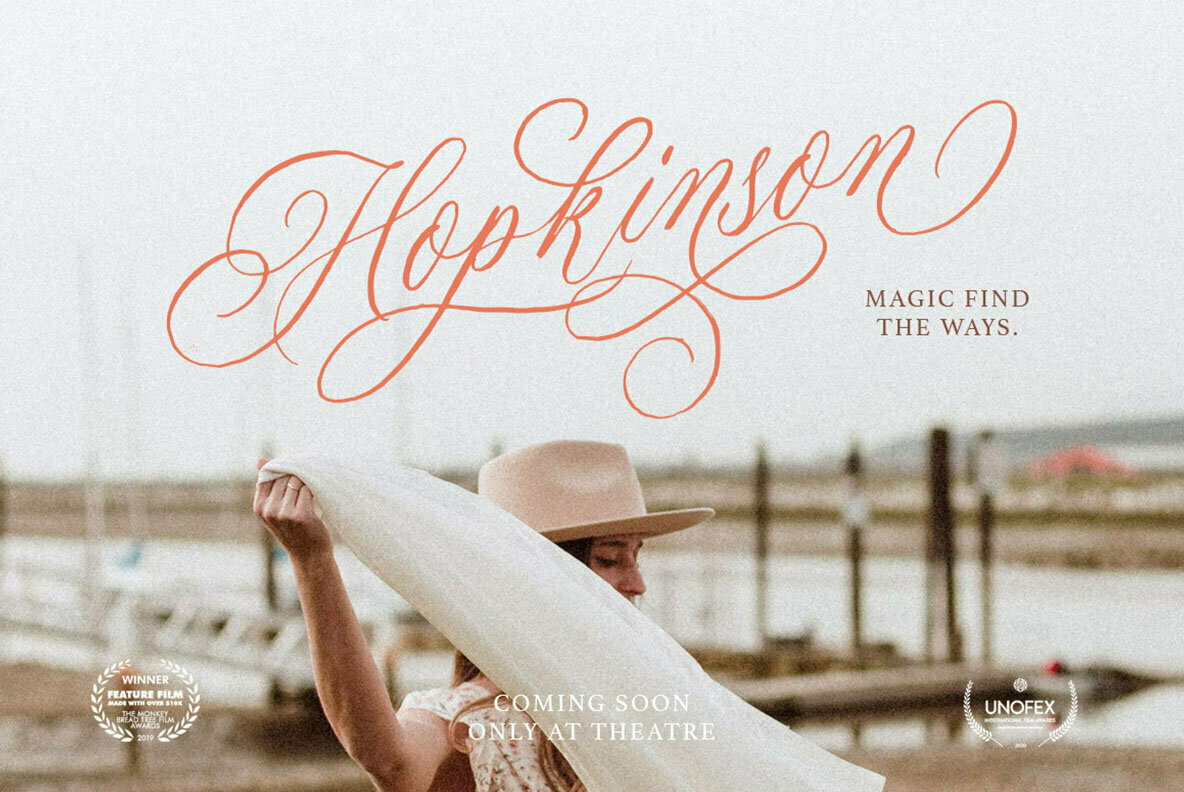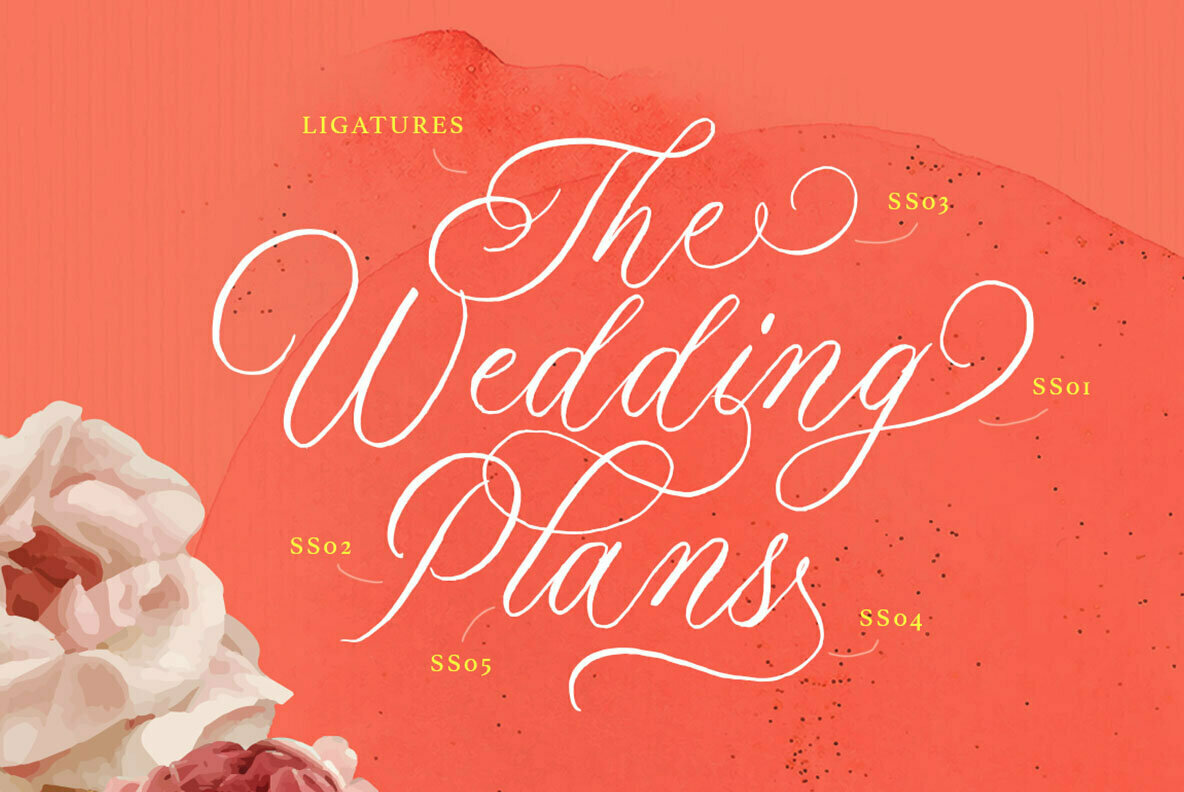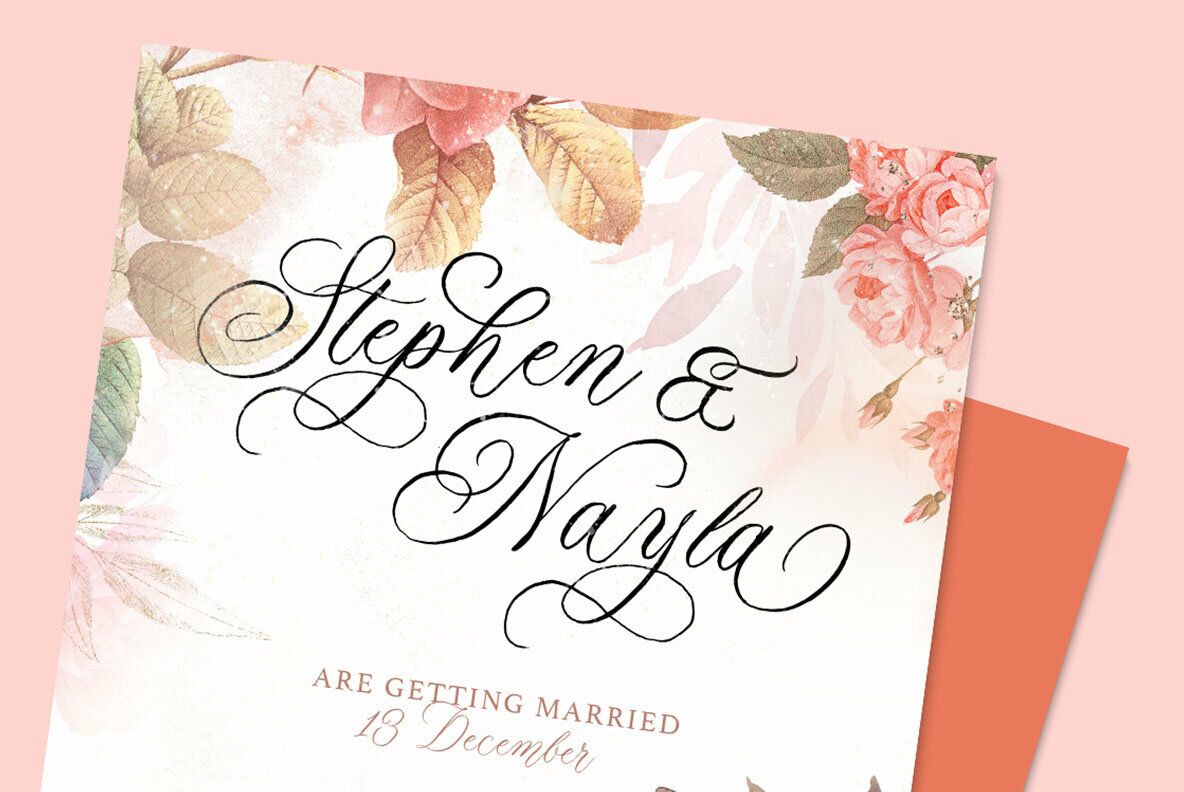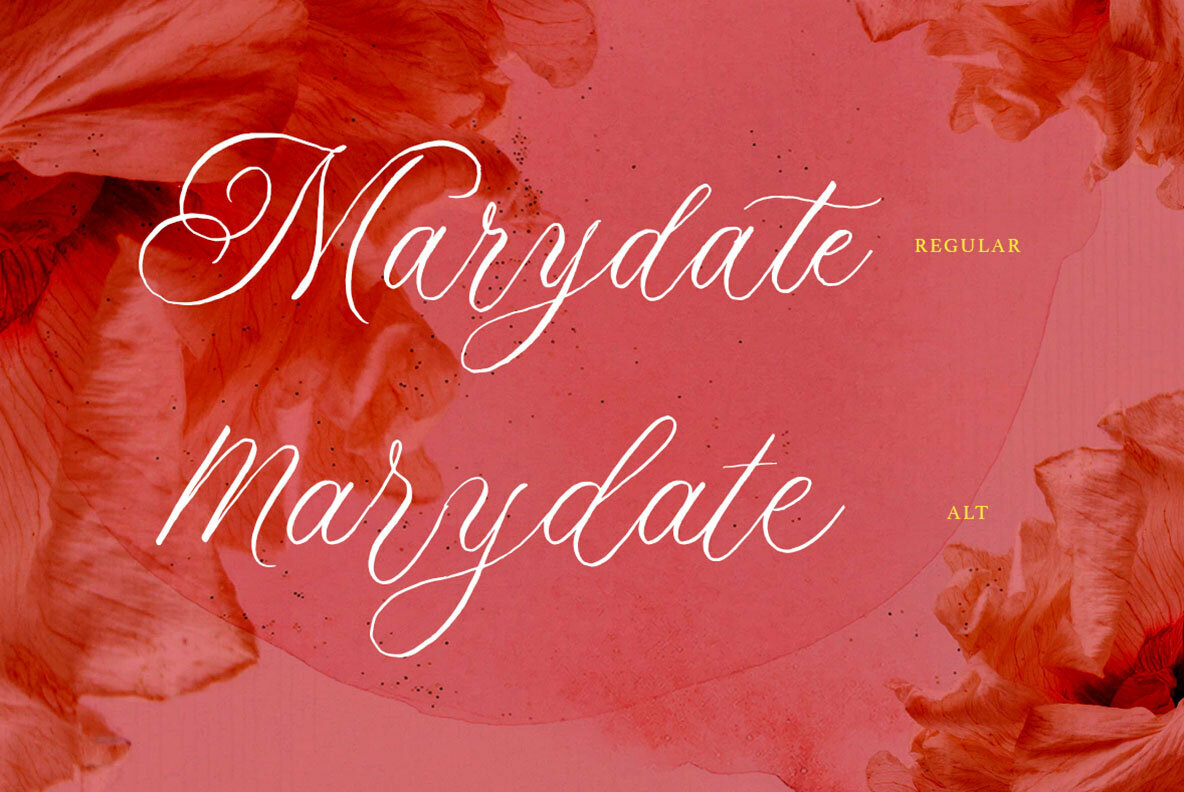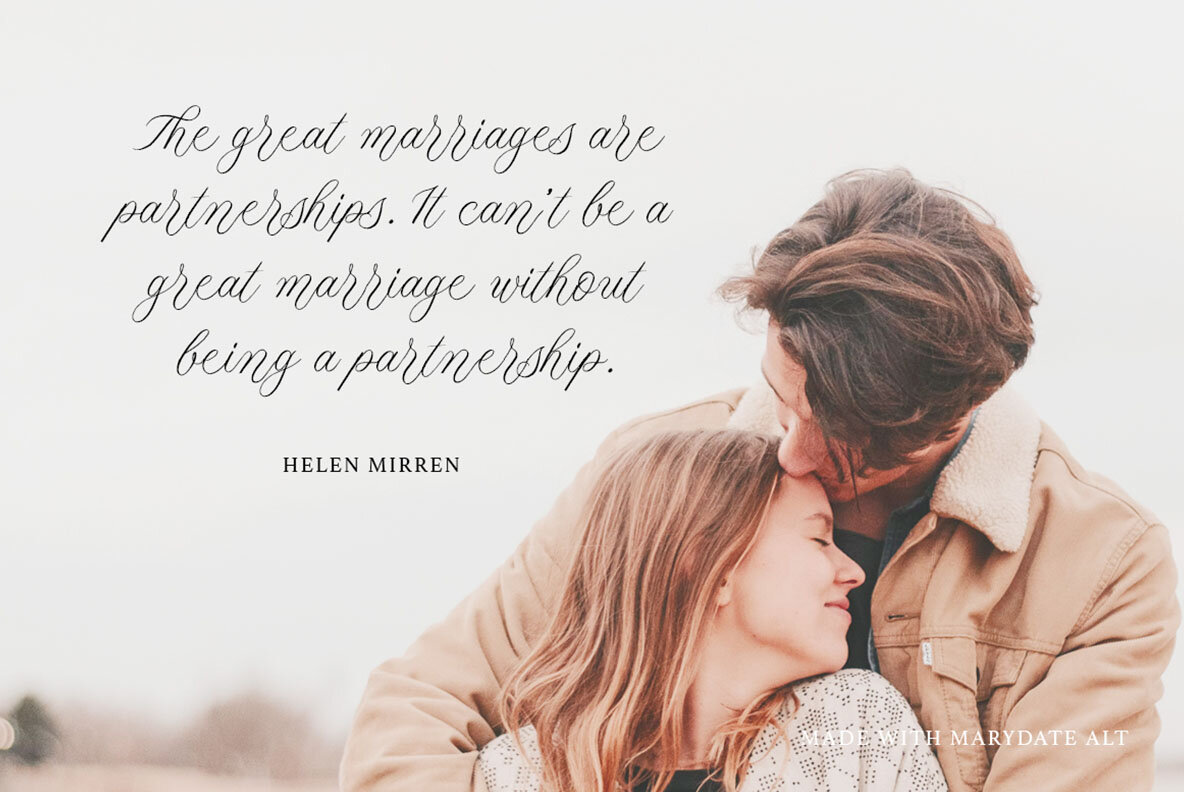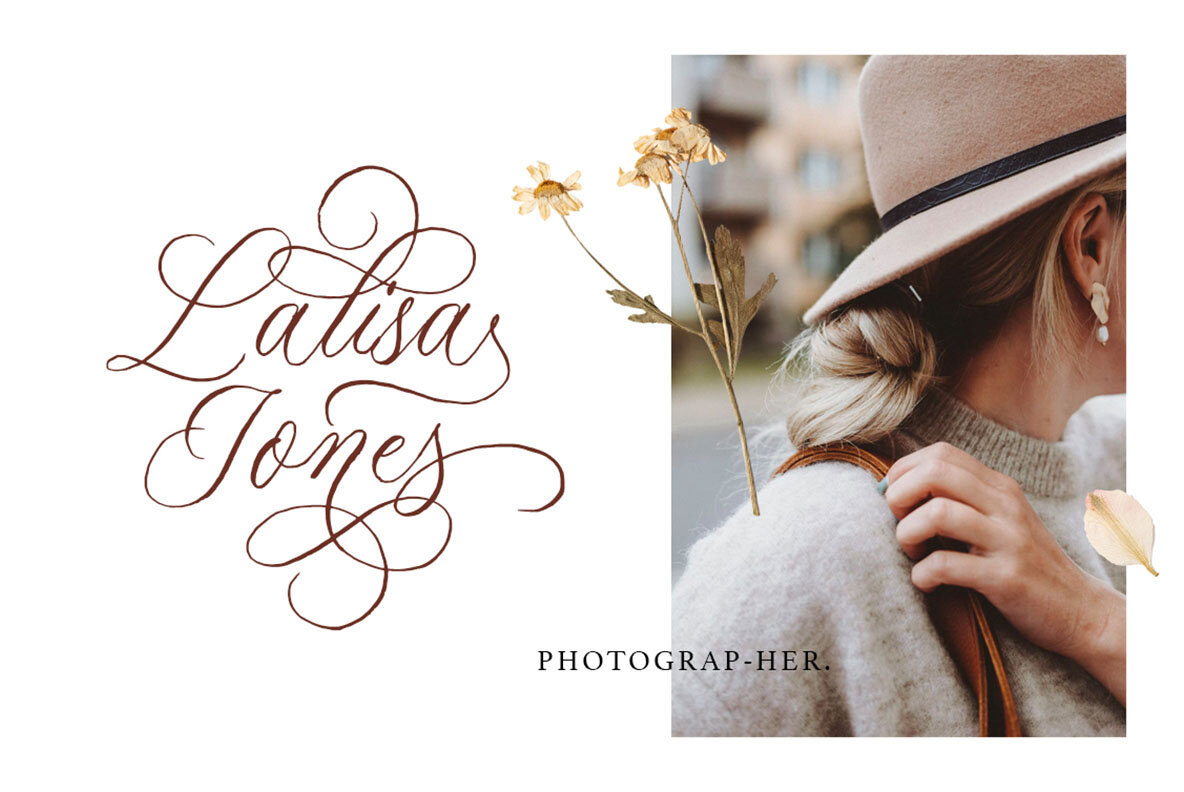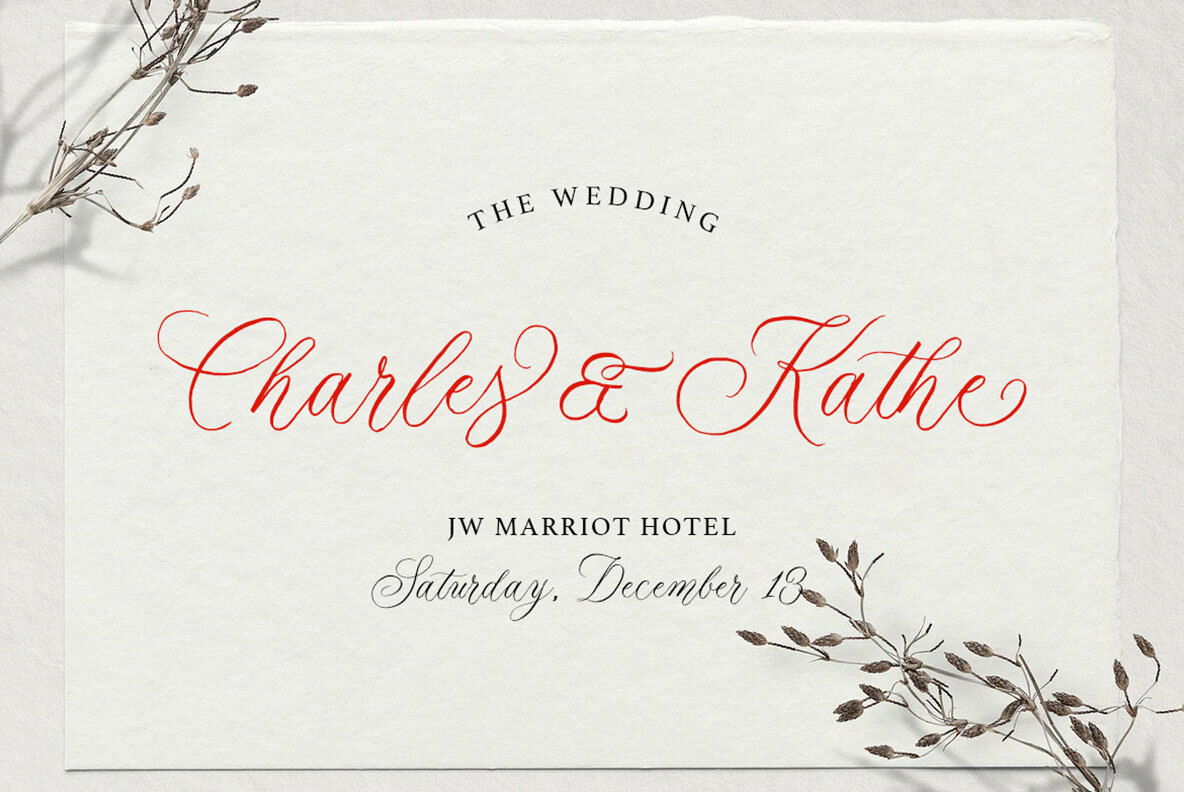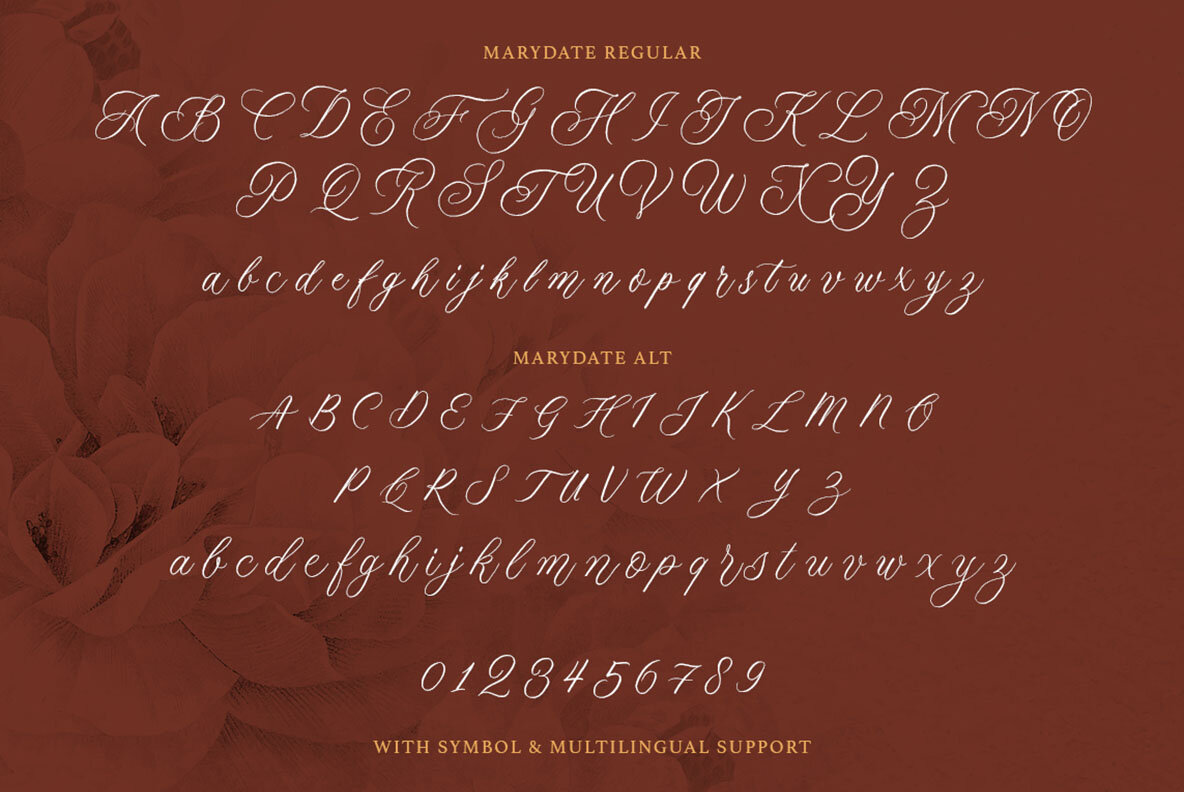
Marydate Font
Marydate is a script font that exudes grace and sophistication. Rooted in manual calligraphy, its luxurious strokes capture the essence of ink on paper, delivering an authentic handwritten appearance. With an array of stylistic alternates and swashes, Marydate provides endless possibilities for creating exquisite lettering. This font is impeccably designed for logos, formal invitations, stylish packaging, and a variety of advertising mediums. Its versatility makes it a suitable choice for: For a seamless design experience, we recommend using an application that supports OpenType features and Glyphs panels, such as Adobe suite or Corel Draw. This enables easy access to all the font's glyph variations.Marydate: A Classical Script with Calligraphic Elegance